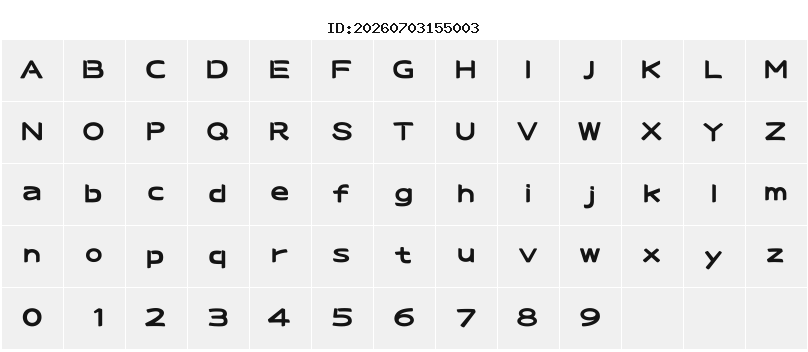
• Font Name: 364-上首典书体
• Manufacturer: 上首造字
About 364-上首典书体.ttf
364-上首典书体.ttf is a modern, elegant sans-serif font designed for ultimate readability and visual harmony. Perfect for branding, headlines, web design, and print materials.